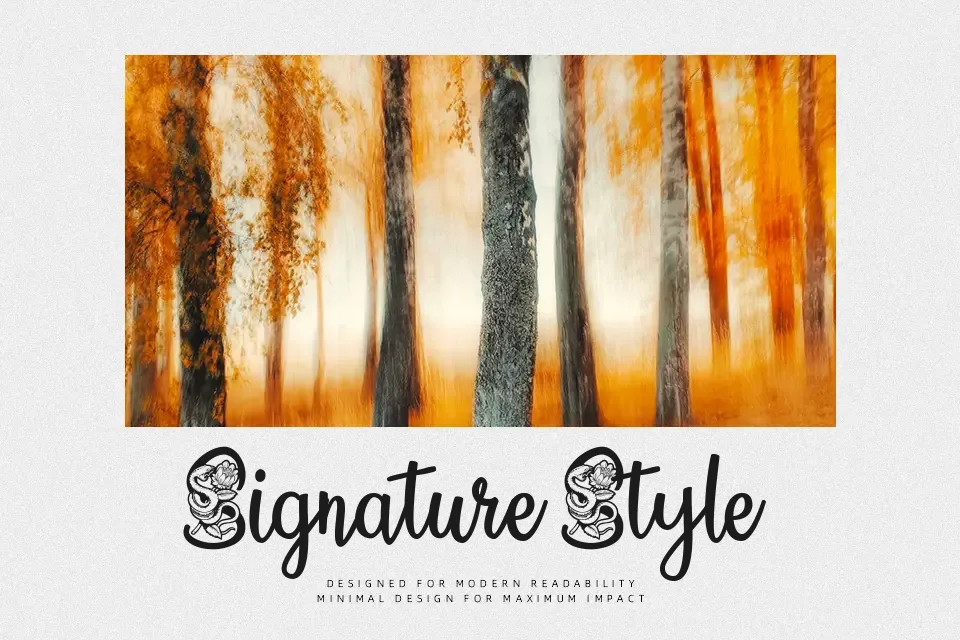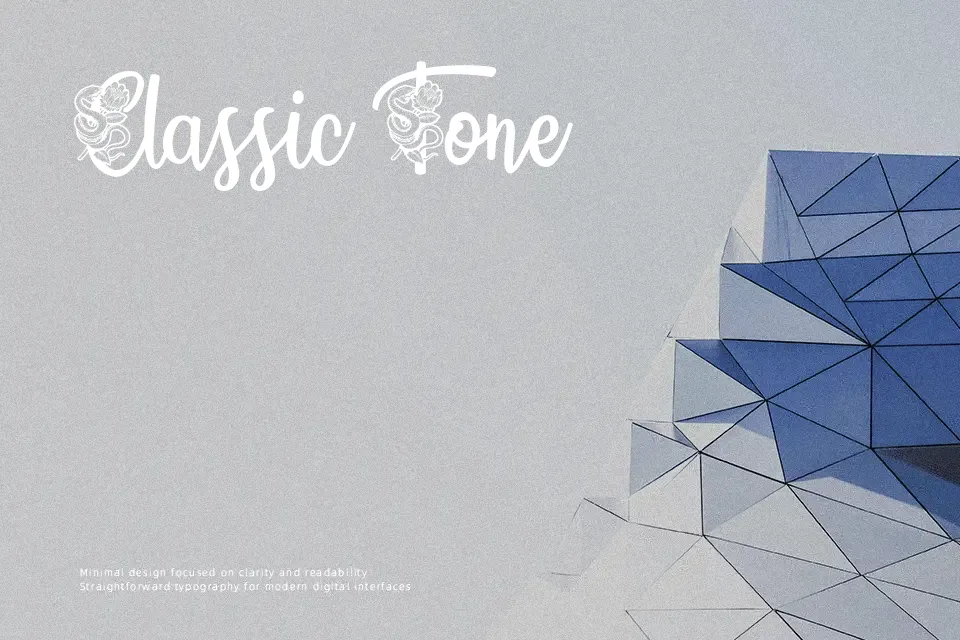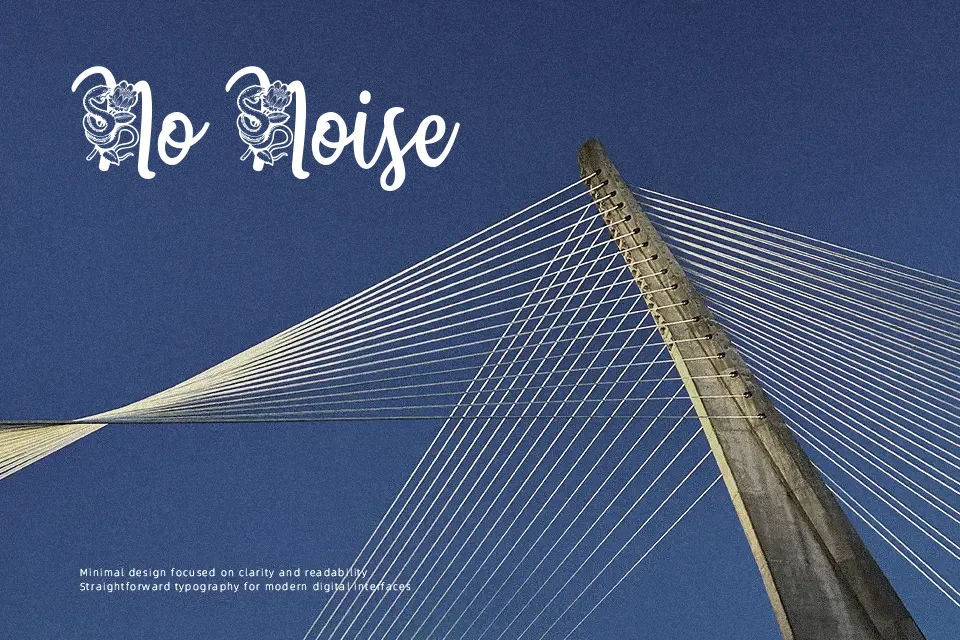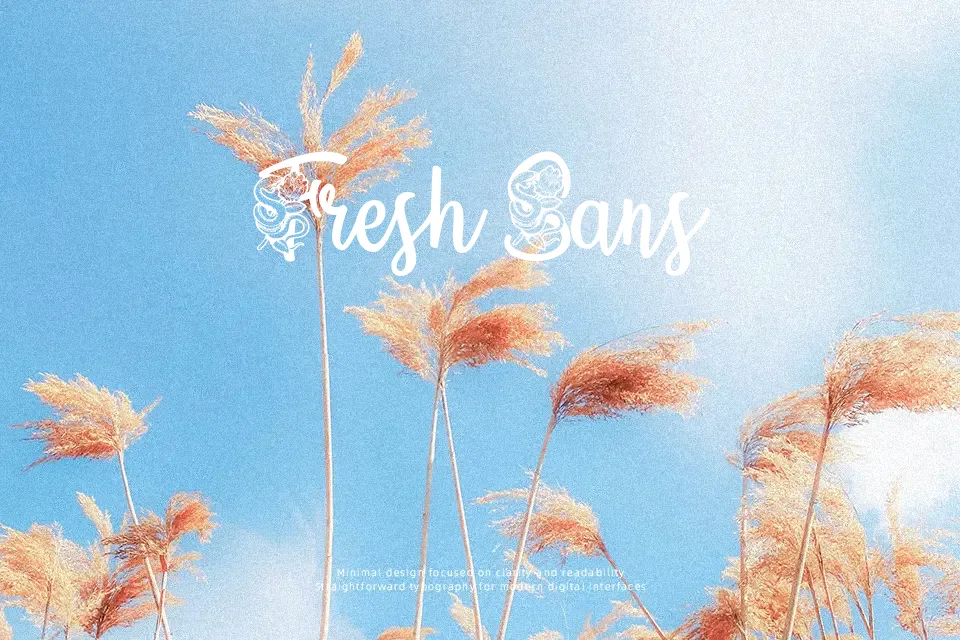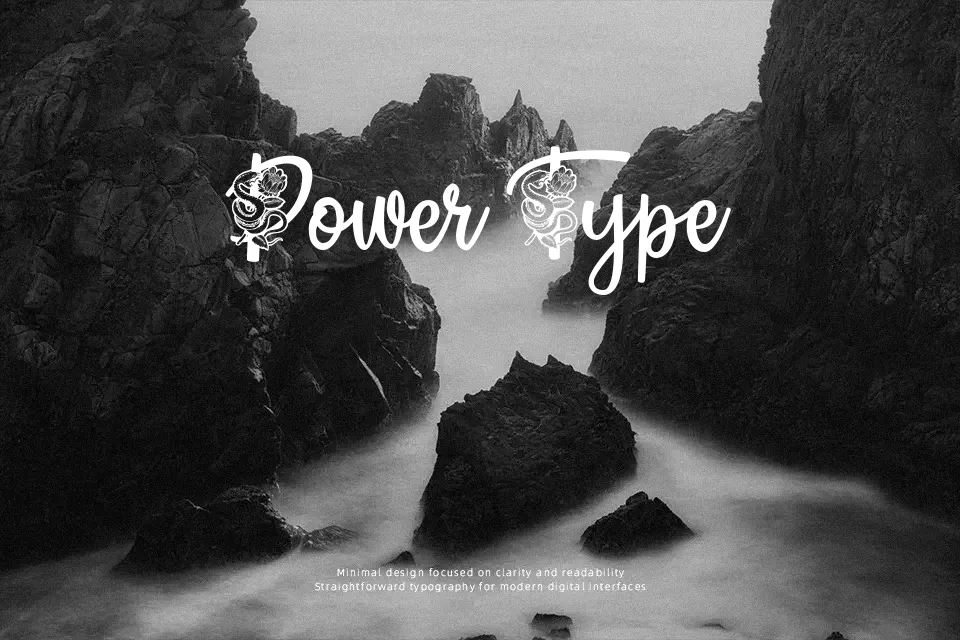
Poison Love Font
A romantic wedding invitation or boutique branding project benefits significantly from the ornate details of the Poison Love Font. This decorative typeface is defined by its elaborate floral motifs that intertwine seamlessly with elegantly curved strokes, creating a highly detailed and artistic structure. The characters display balanced proportions, though the added decorative elements result in a tighter visual rhythm that requires ample canvas space to appreciate fully. The spacing helps maintain clarity in larger headlines, allowing the complex linework to stand out beautifully. However, the heavy use of floral embellishments reduces continuous reading comfort, making these letterforms less suitable for long paragraphs or small captions where the delicate details might bleed together.
romantic wedding invitations
vintage apparel graphics
boutique brand logos
tattoo studio signage
spreadsheet data
Perfect for branding, logo, and tattoo, with a artistic and decorative style.